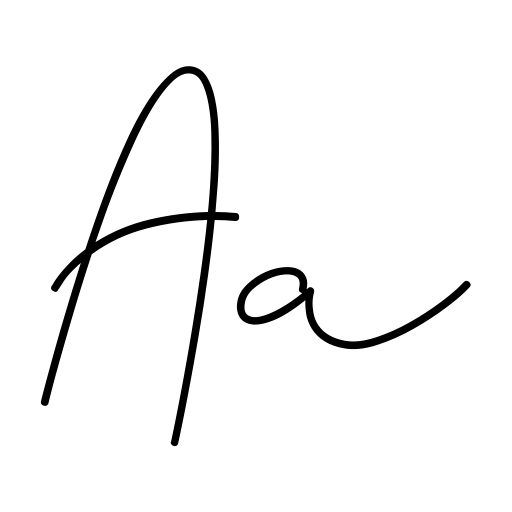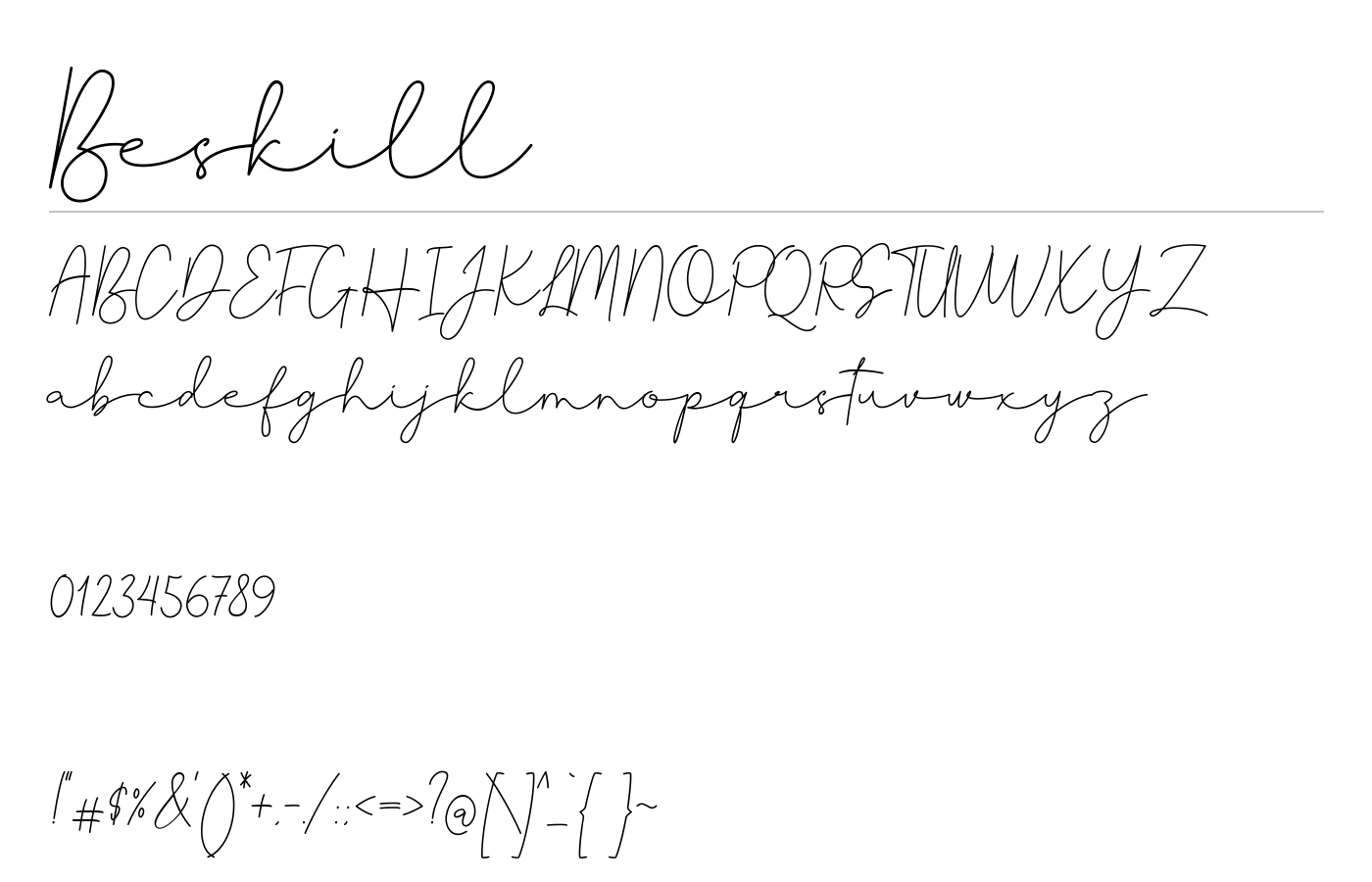
Beskill is a delicate, handwritten script font with a light, airy feel characterized by thin, flowing strokes and elegant, slightly irregular letterforms. Its narrow width and tall x-height create a graceful, personal touch ideal for projects seeking a casual yet refined aesthetic. This font works beautifully for invitations, branding, social media, and other designs that benefit from a charming, handwritten style.
Beskill Font
About Beskill Font